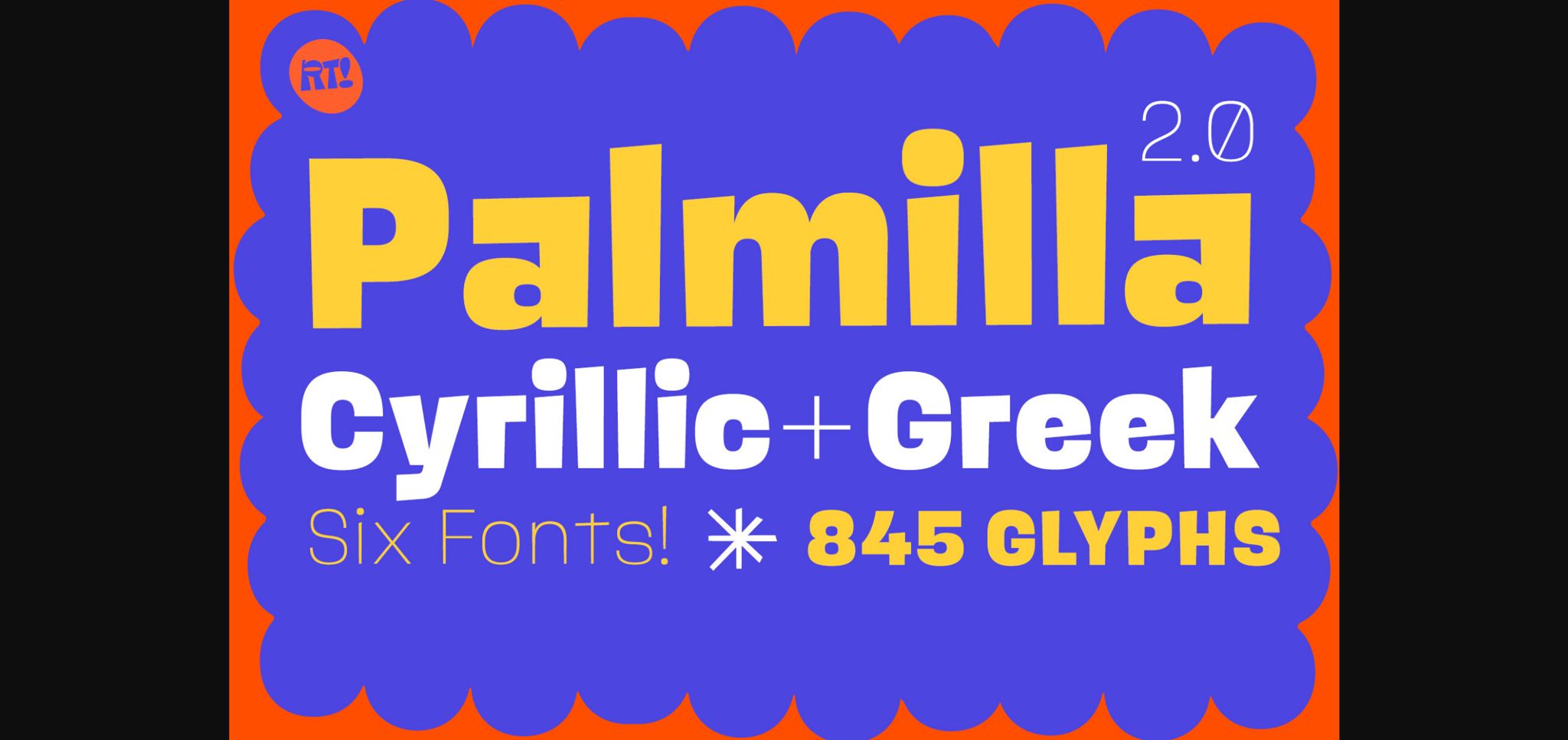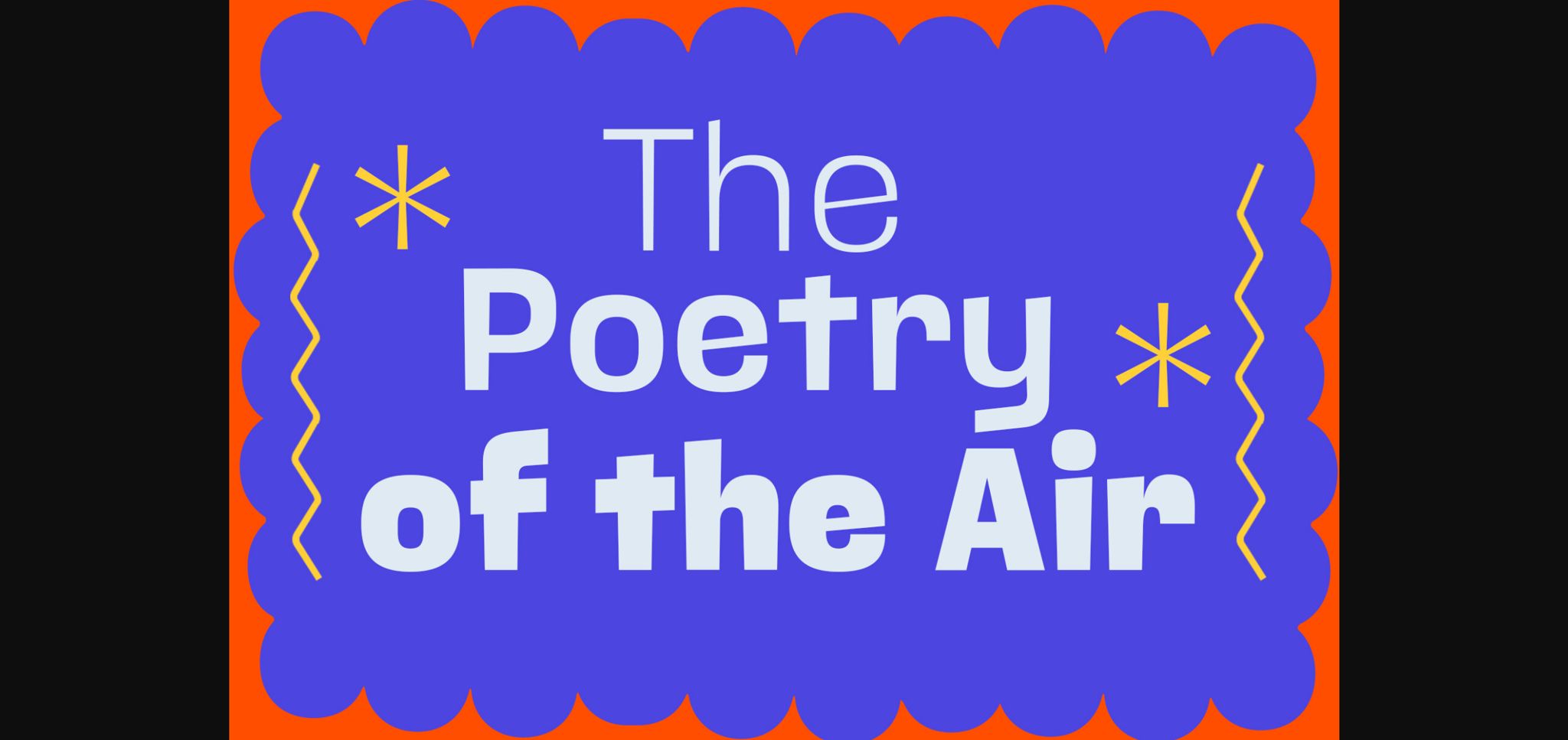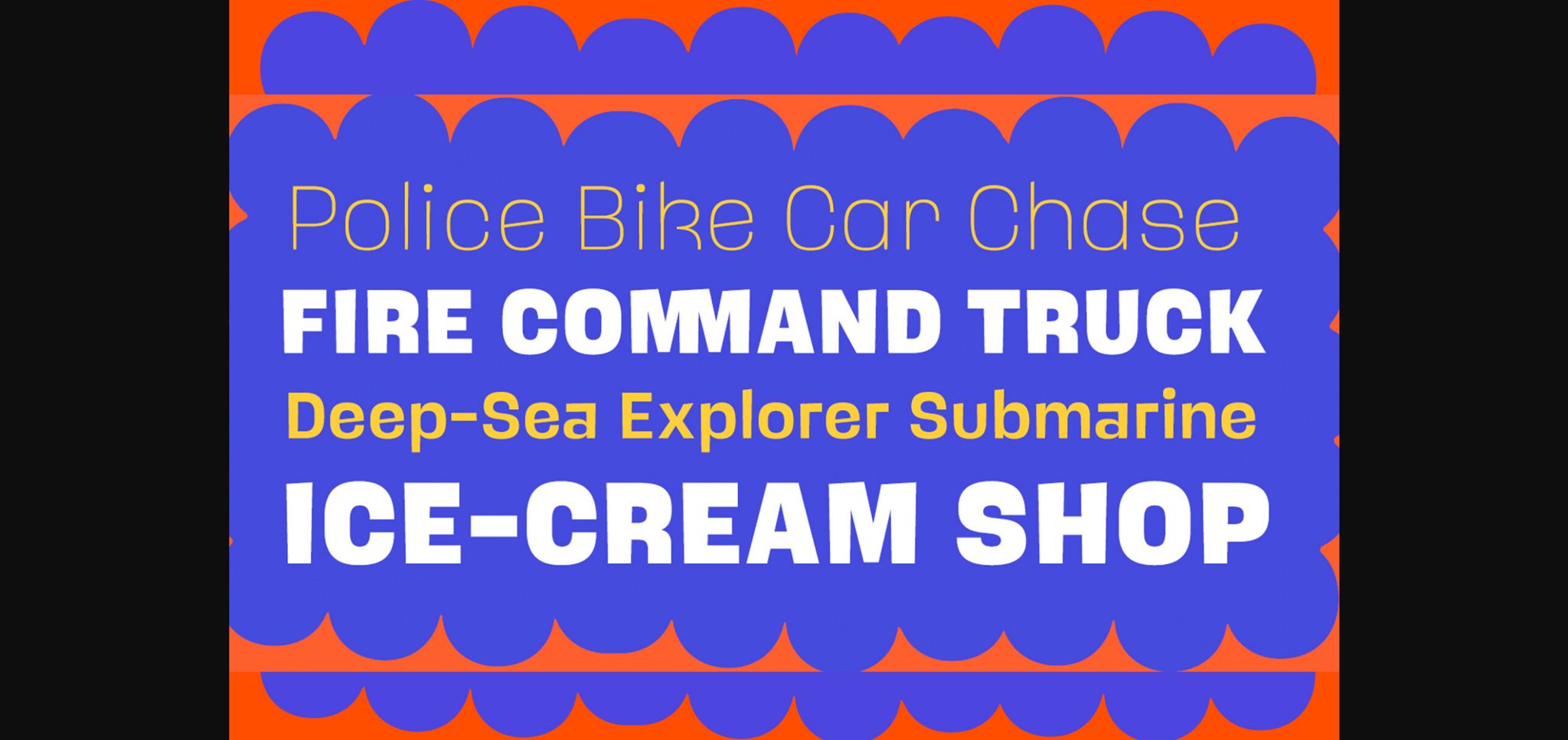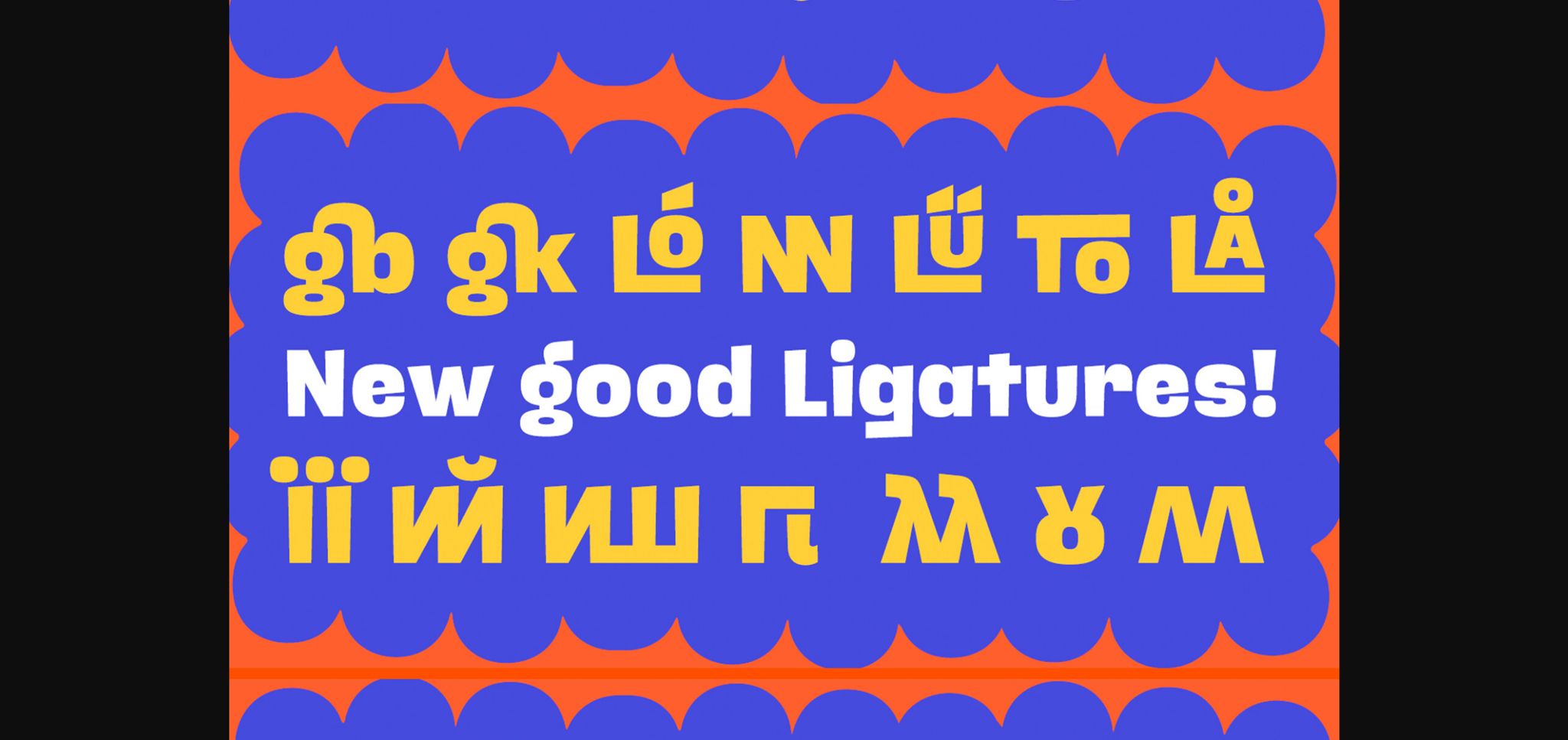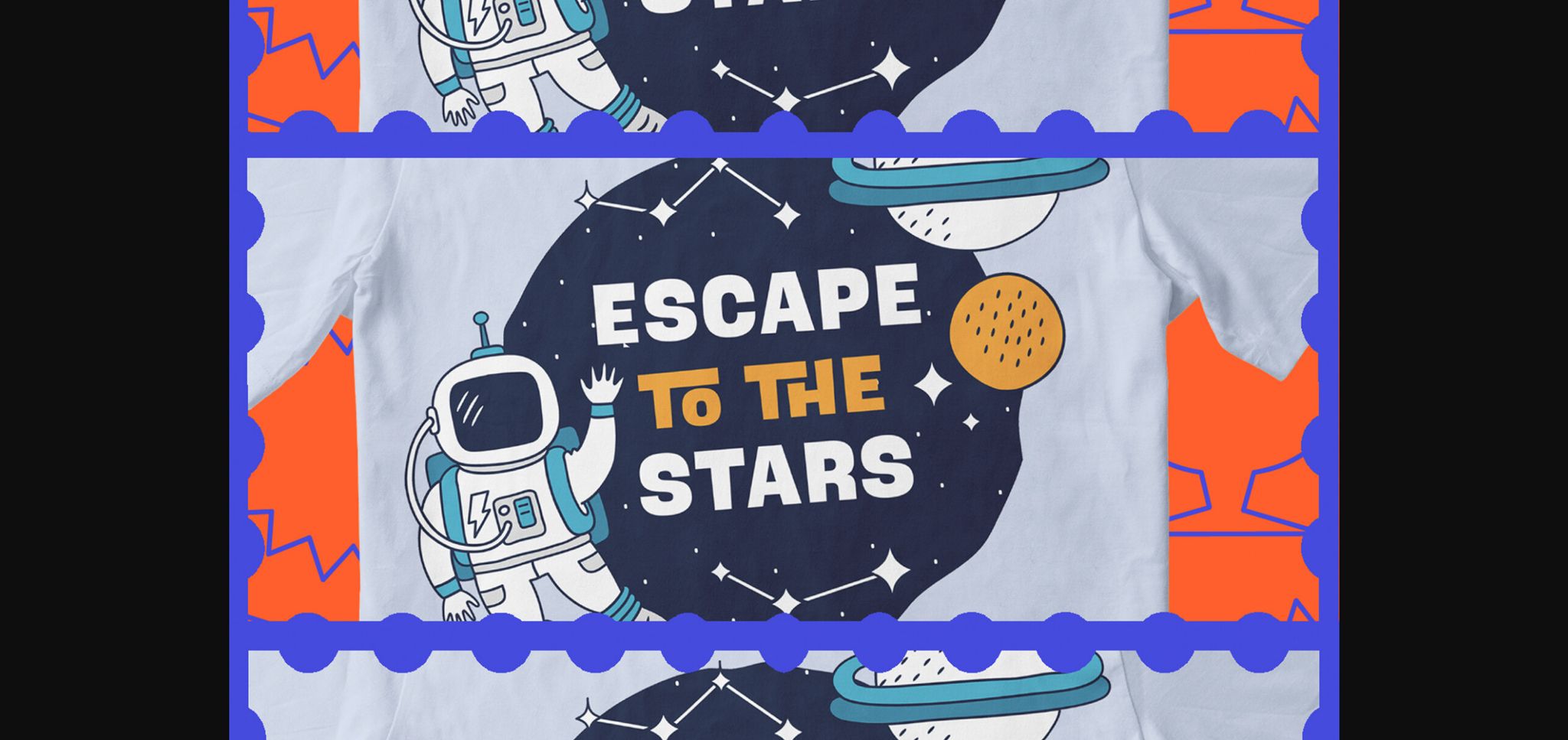
About Palmilla 2.0 Font
Palmilla 2.0 is a continuation of Palmilla which added more glyphs such as Alphabets, Cyrillic was added like Greek, and in addition to Alternatives such as Ligatures, more Ligatures were also added in Latin to play more with the title, in total there are six special weights for informal and creative titles.